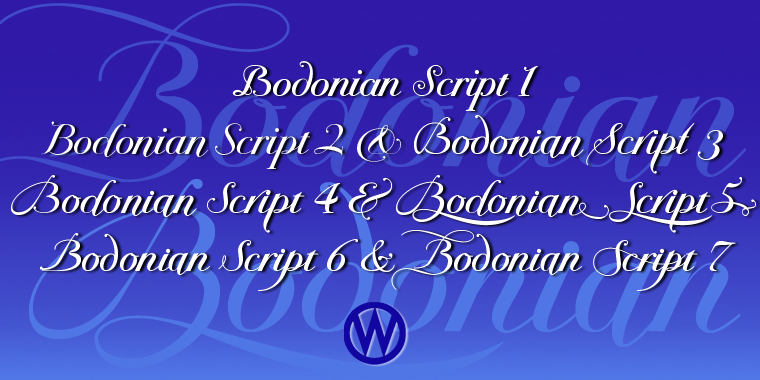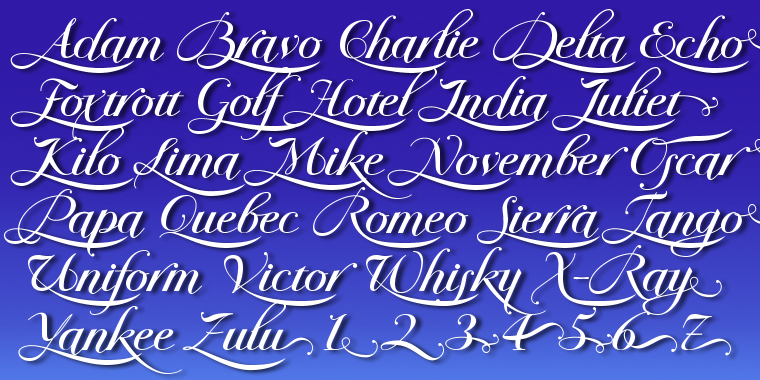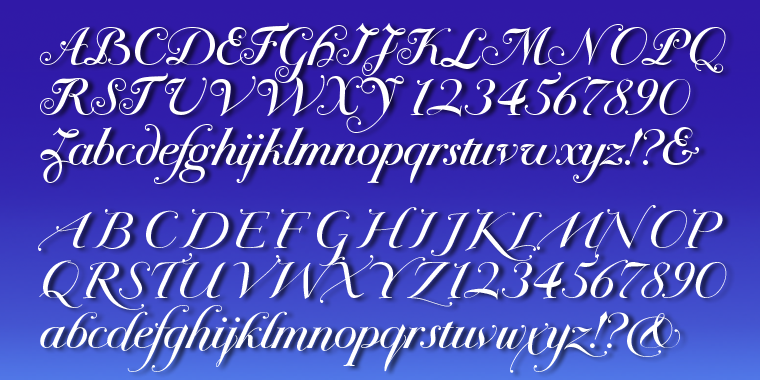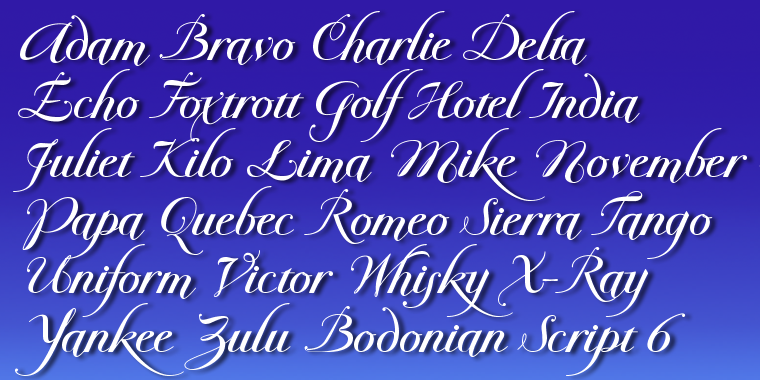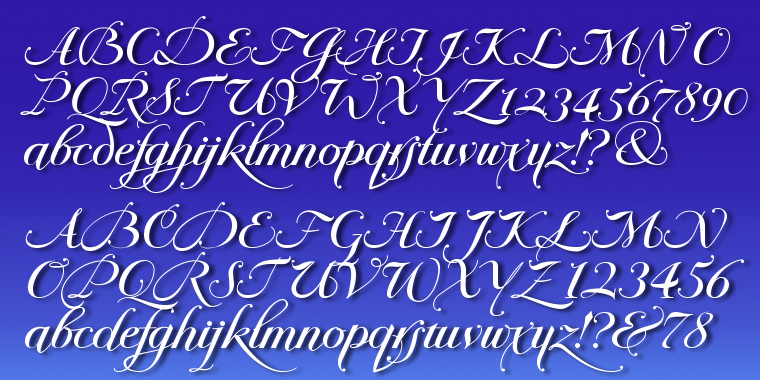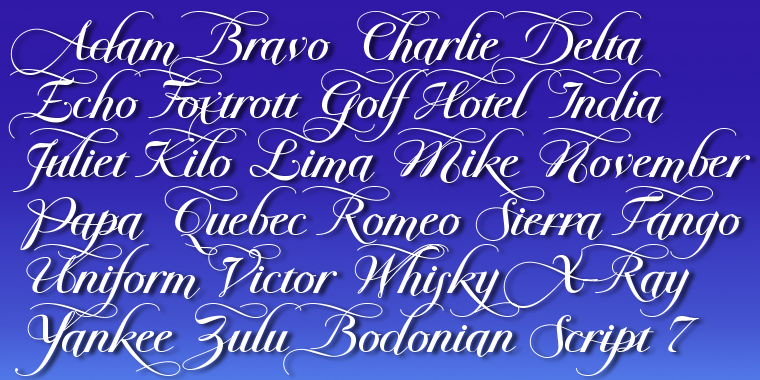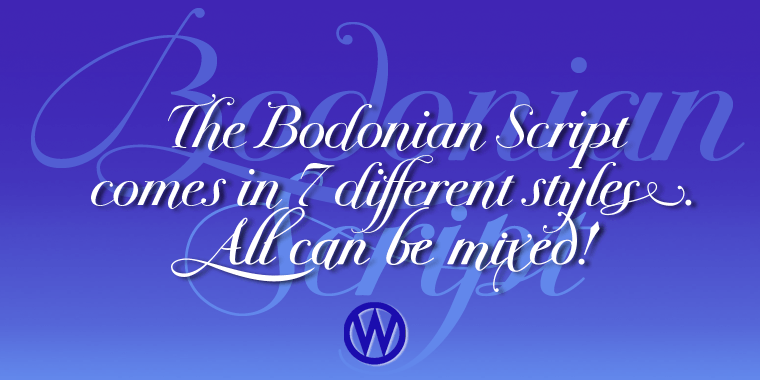
Bodonian Script is a script font family. This typeface has seven styles and was published by Wiescher-Design.
»Bodonian Script« is a set of seven fonts that can be mixed with each other freely. Number 1 is the most true to Bodoni. Number 2, 3, 4 and 6 have different capital letterforms. Number 5 is like 4 but with elaborate swashes. Number 7 has underlining swash-capitals and lowercase end-letters. Some of the accents are different in different fonts as well as the ligatures and the ampersands. These Bodonian fonts have the biggest variety of letterforms in any of my scripts. I packed them in 7 single packets so that they can be used as single cuts as well as mixed. You need to have opentype-savy software only if you want to use the ligatures automatically, otherwise everybody can use these scripts. But in Microsoft-Word or Wordpad you will run into problems with the long decenders and ascenders. This can not be changed!!! I advise you not to use these fonts with that software. Have fun! Your Bodonian type-designer Gert Wiescher